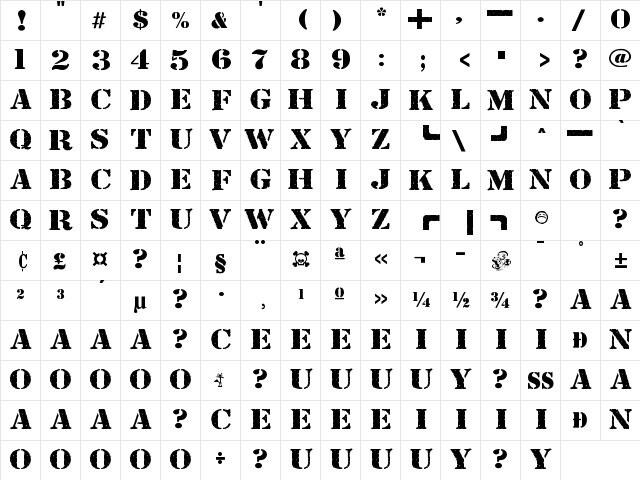
Just Another Stencil Font Regular
Design Context for Just Another Stencil Font Typeface
Just Another Stencil Font has the rough pragmatism of spray-painted stencil signage, adding a raw, street-level authenticity to designs.
Ideal for industrial branding, streetwear, military-adjacent aesthetics, and urban signage projects.
Pro Tip: Pair Just Another Stencil Font with raw, utilitarian design elements — exposed concrete textures, flat colour, and minimal ornamentation suit it well.